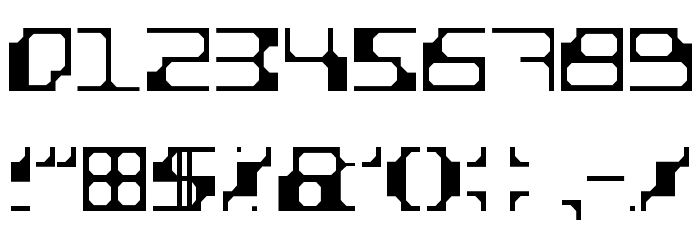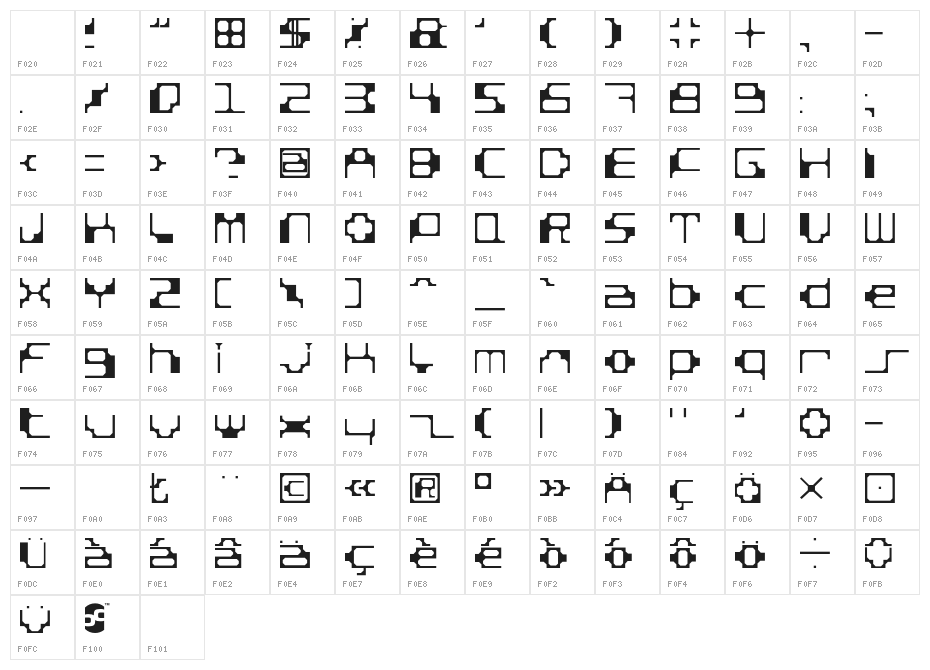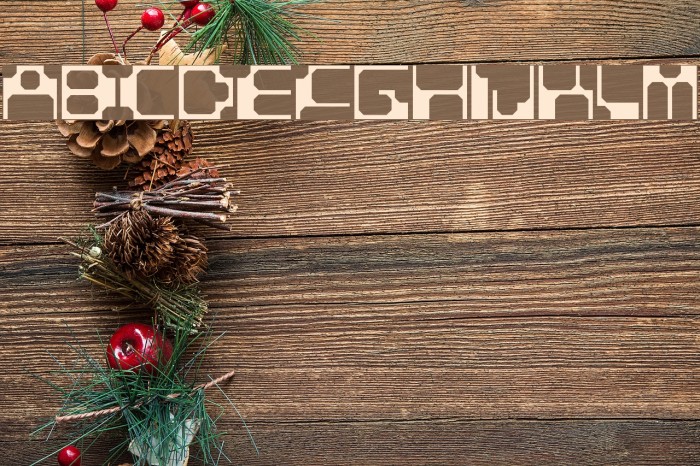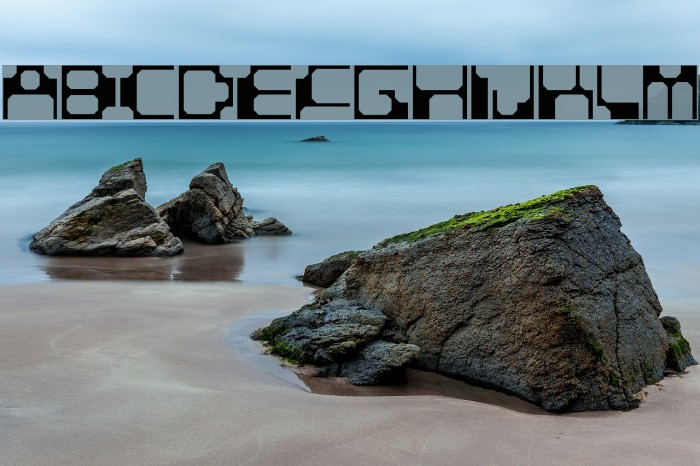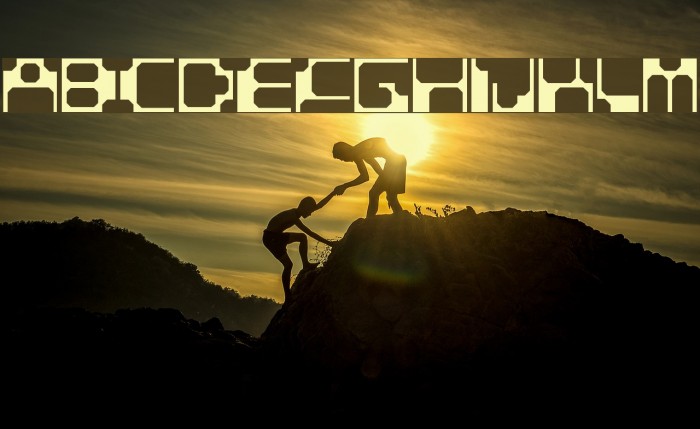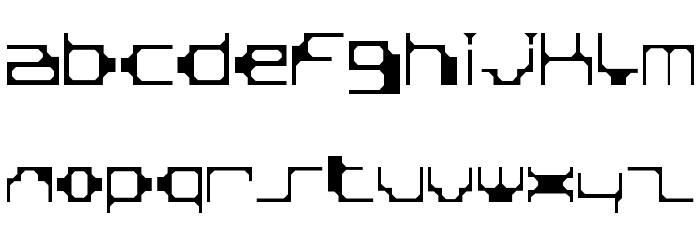
BDLoFi Font
BDLoFi Description
This font exhibits a unique, futuristic design with a geometric and modular structure. The characters are composed of bold, block-like shapes with sharp angles and cut-out sections, creating a digital, high-tech appearance. The uppercase and lowercase letters maintain a consistent style, with the lowercase being slightly more condensed. The numbers and special characters follow the same design principles, ensuring uniformity across the set. The font's distinct style makes it stand out, ideal for projects that require a modern and edgy look.
| Proposed Projects | Ideal for tech-related branding, sci-fi themed designs, video game interfaces, and modern posters. |